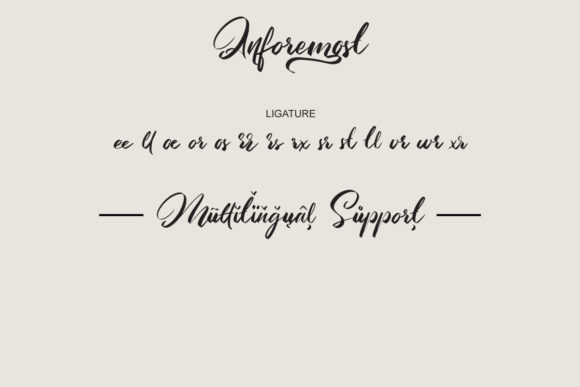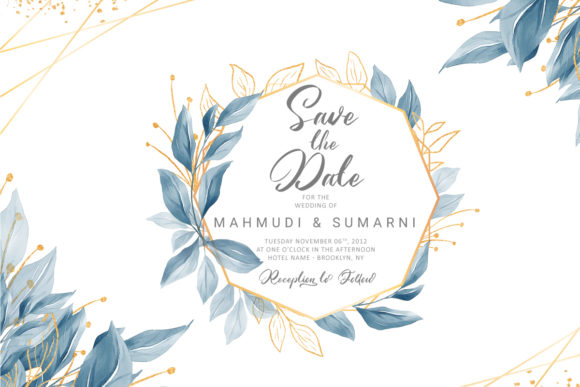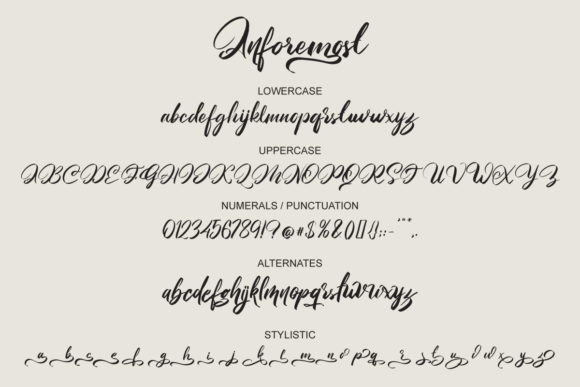
Introduction to Anforemost Font
Anforemost is a modern handwritten script font.
It has a wide spectrum of applications from packaging products to invitation cards to headlines and is sure to add a romantic feel to your next projects This font is PUA encoded which means you can access all of the glyphs and swashes with ease.
Key Features of Anforemost Font